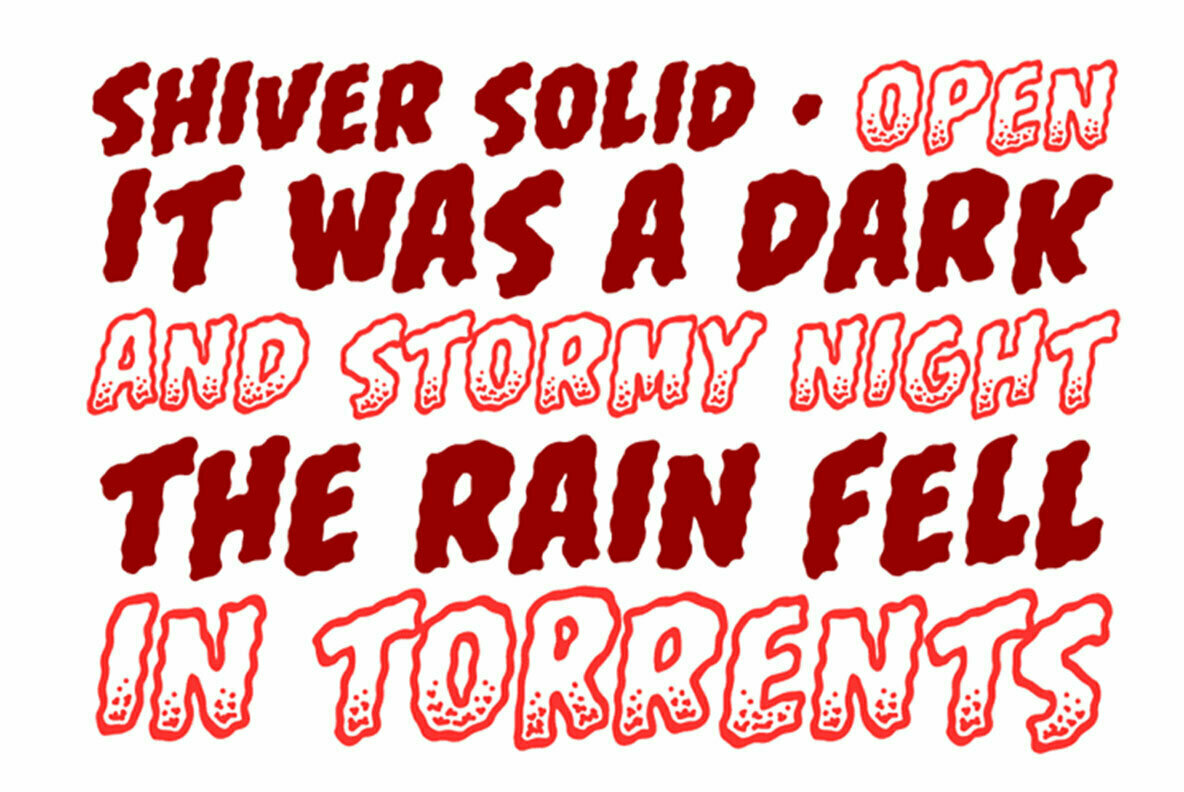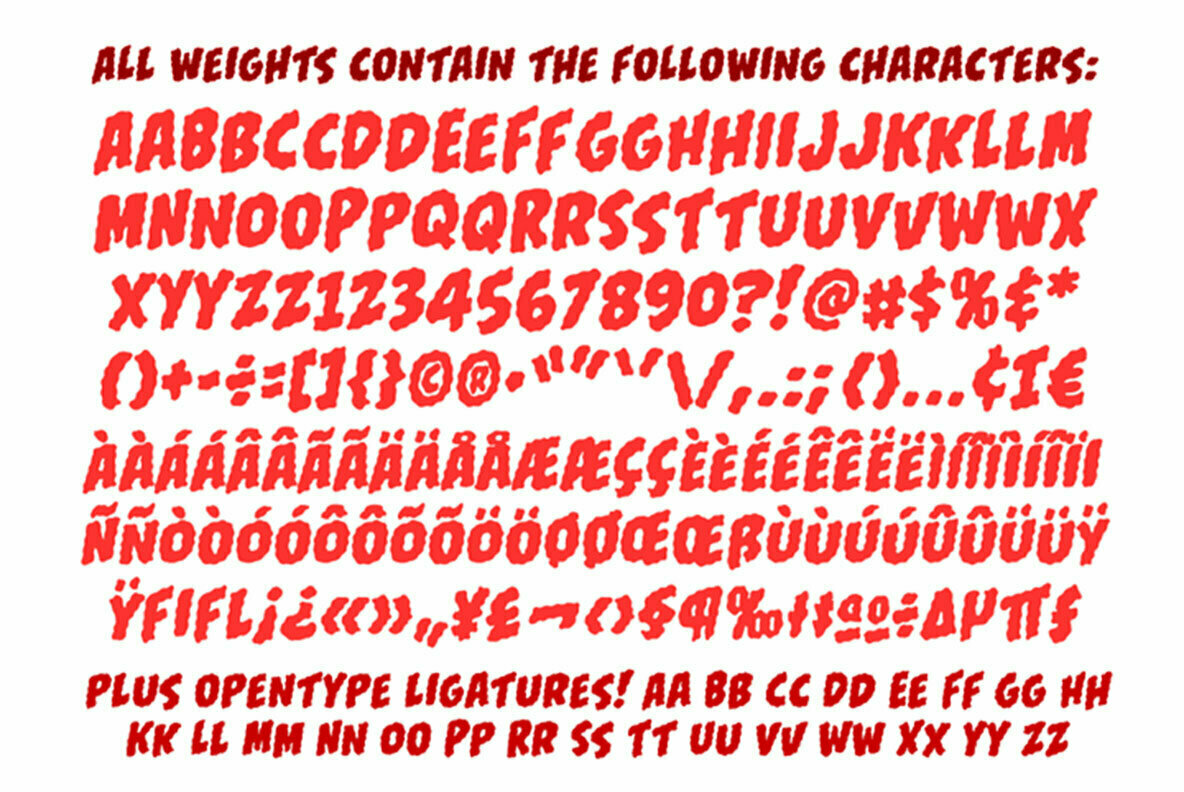
Shiver Font
CC Shiver
CC Shiver Open
Is your character vibrating slightly or feeling shuddering feverishly, as if from fear or excitement? Is he or she a warm-blooded animal experiencing the early onset hypothermia? Is your protagonist experiencing a pleasurable sensation of anticipation or maybe he/she has a fragment or splinter of glass or stone in the tip of his/her finger.
Any which way, Comicraft now has the font for you to effectively convey the way your characters are feeling to comic book readers everywhere... It’ll be just like they’re listening to a track by Coldplay while trying to shake off the flu in a haunted house.